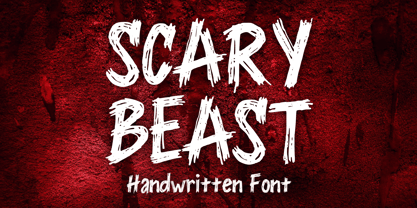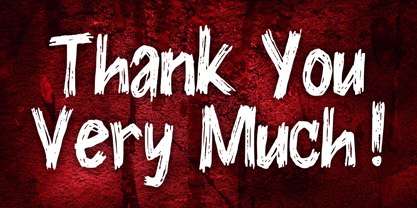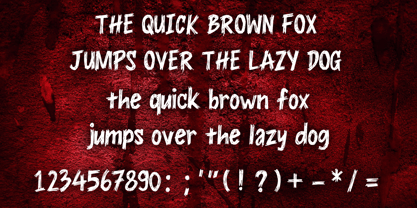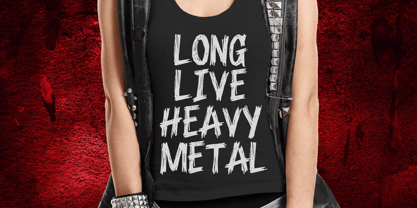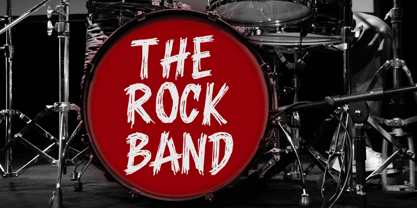
Scary Beast
by Mvmet
The Scary Beast Font Family was designed by Gabriel Valentinus and published by Mvmet. Scary Beast contains 1 styles. More about this family
Scary Beast is a striking grunge handwritten font that draws inspiration from vintage horror films, comics, and the aesthetics of Metal music. This font is ideal for eye-catching designs that demand attention. Whether you’re creating merchandise such as t-shirts and apparel, designing covers for spine-chilling books, or setting the mood for Halloween parties, Scary Beast fits the bill. It's perfect for movie and music posters, greeting cards, stickers, banners, and any project that seeks to evoke a thrilling, horror-inspired vibe. With its unique style and versatility, Scary Beast enhances your creative endeavors with a touch of edgy flair.
Designers: Gabriel Valentinus
Foundry: Mvmet